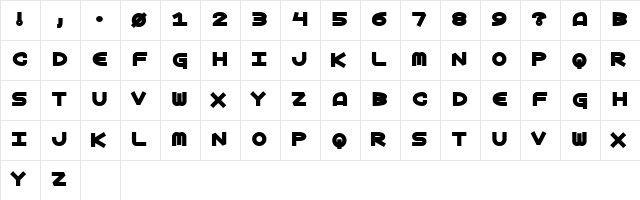
Brainwave Regular
Design Context for Brainwave Typeface
Brainwave takes a measured approach to typography — its balanced proportions and neutral character make it a reliable workhorse for both digital and print work.